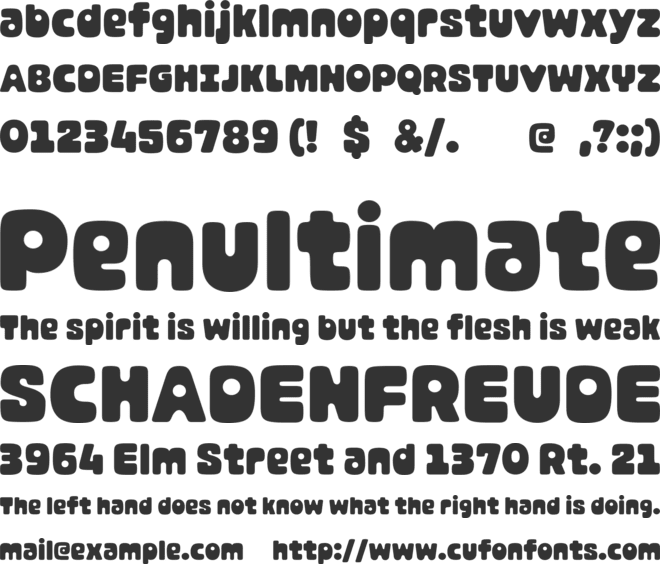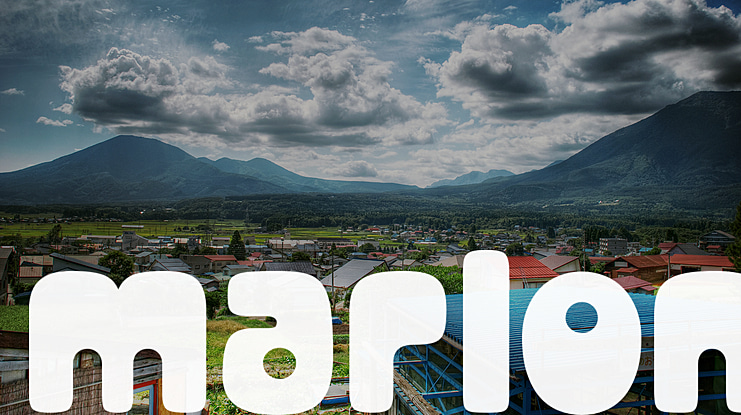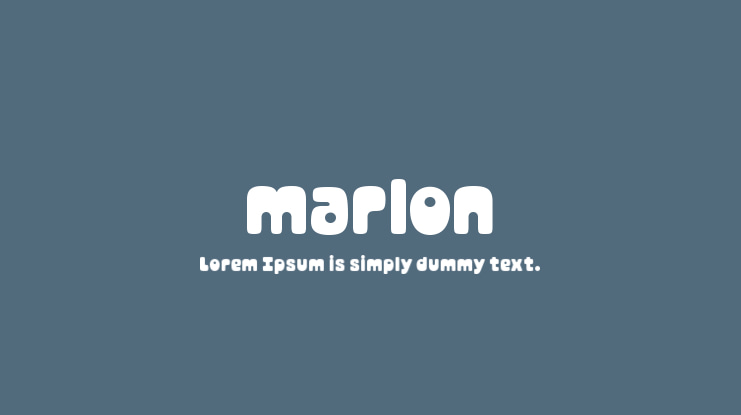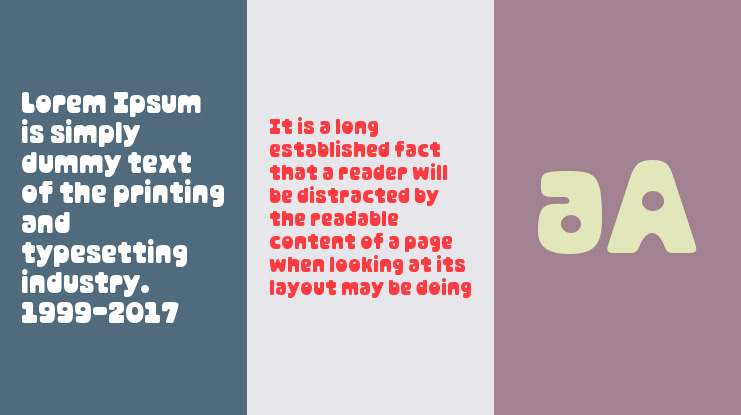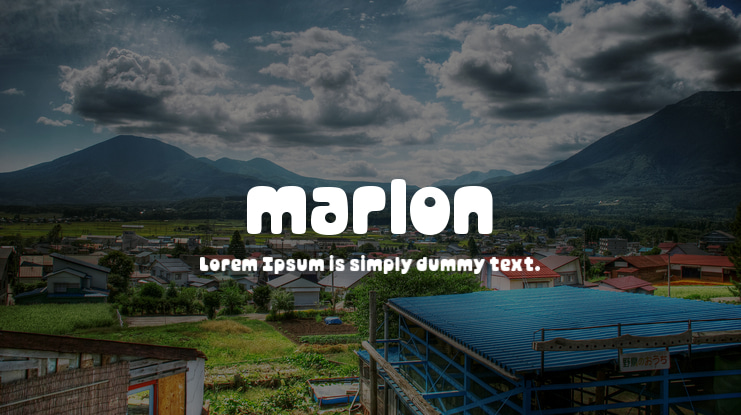
marlon Font
"marlon" is a typeface inspired by the letter forms in the artwork of Marlon Mullen - a Bay Area painter who has autism spectrum disorder, and is for the most part non-verbal, yet he paints words as shapes when he reimagines magazine spreads on canvas.